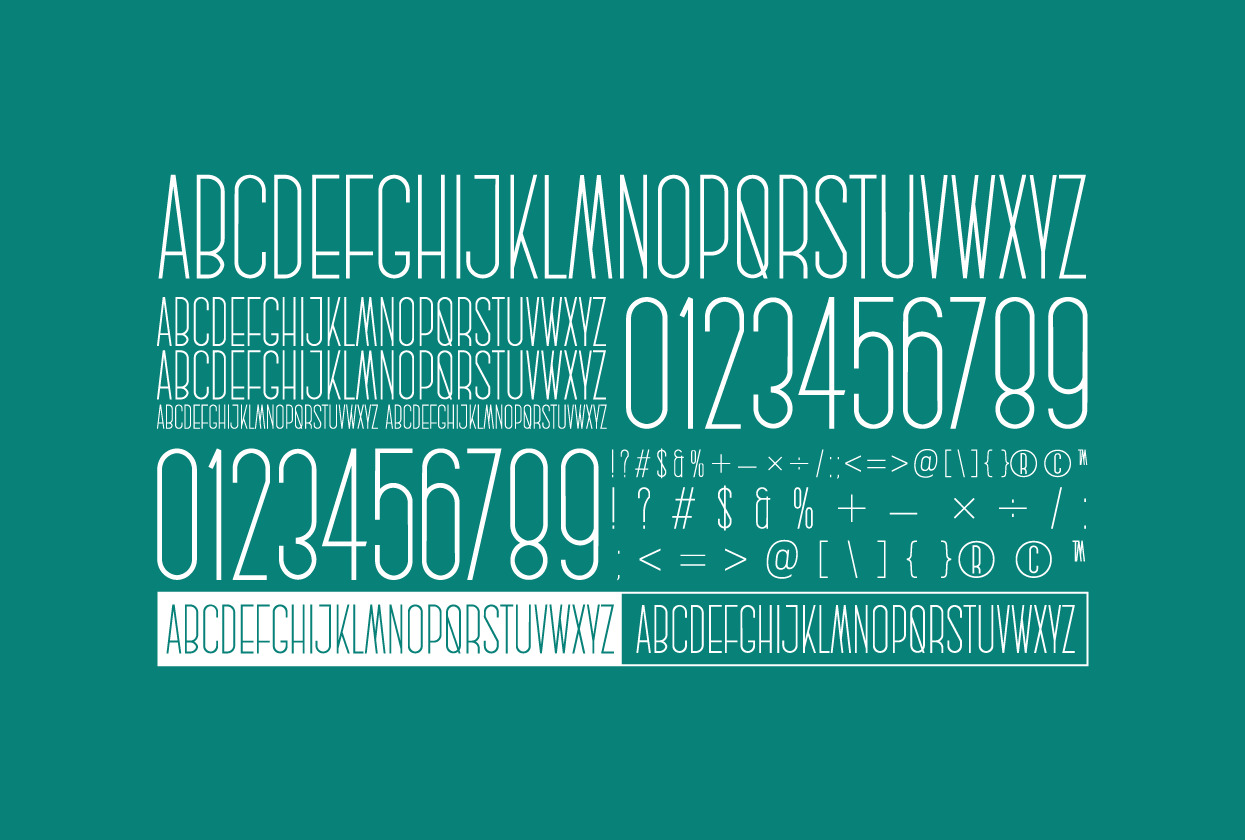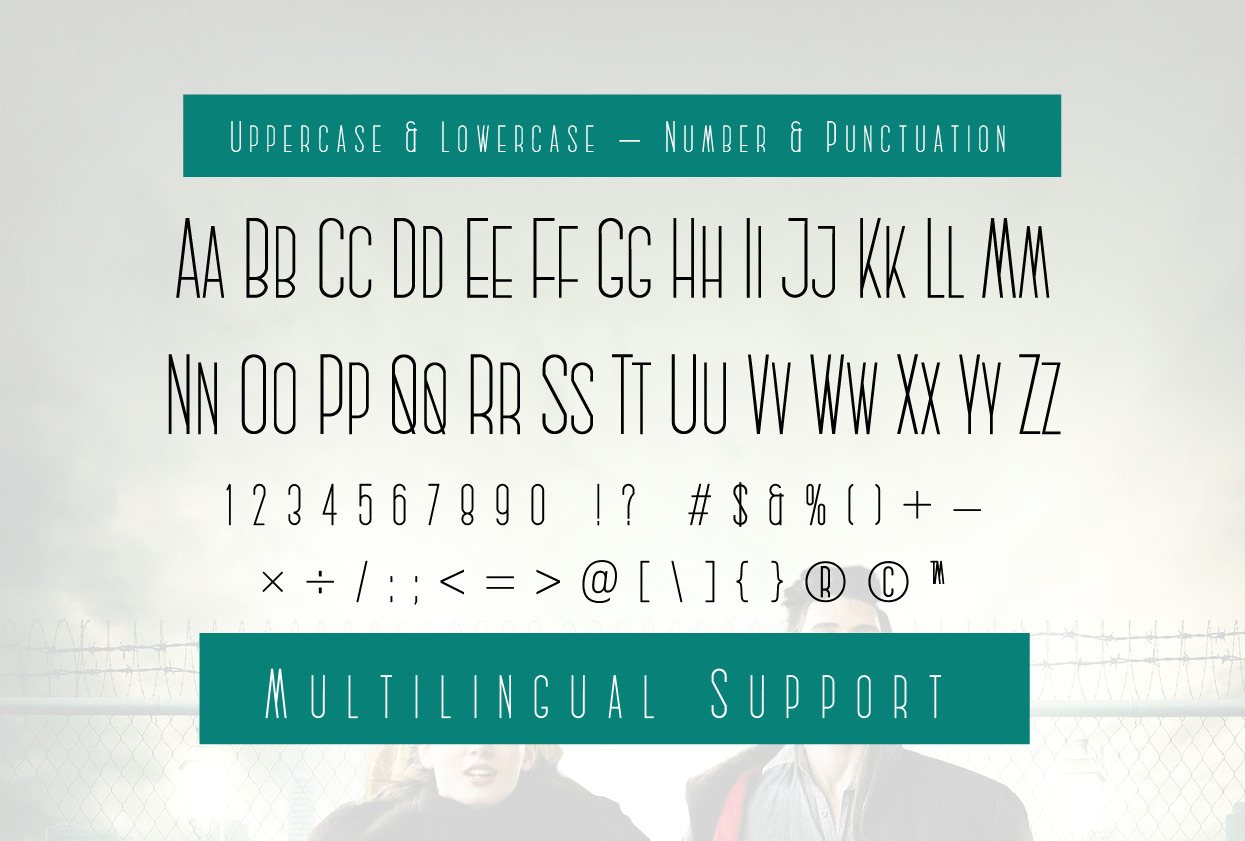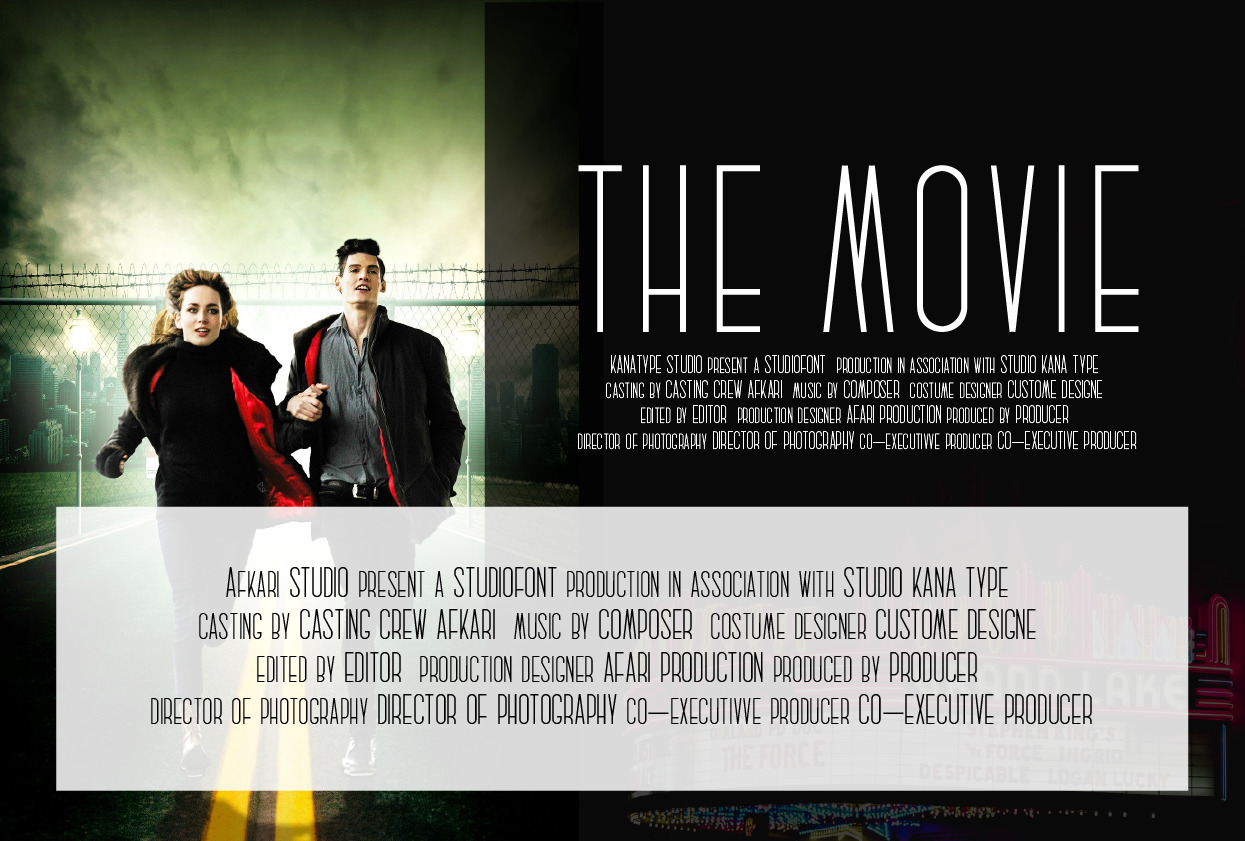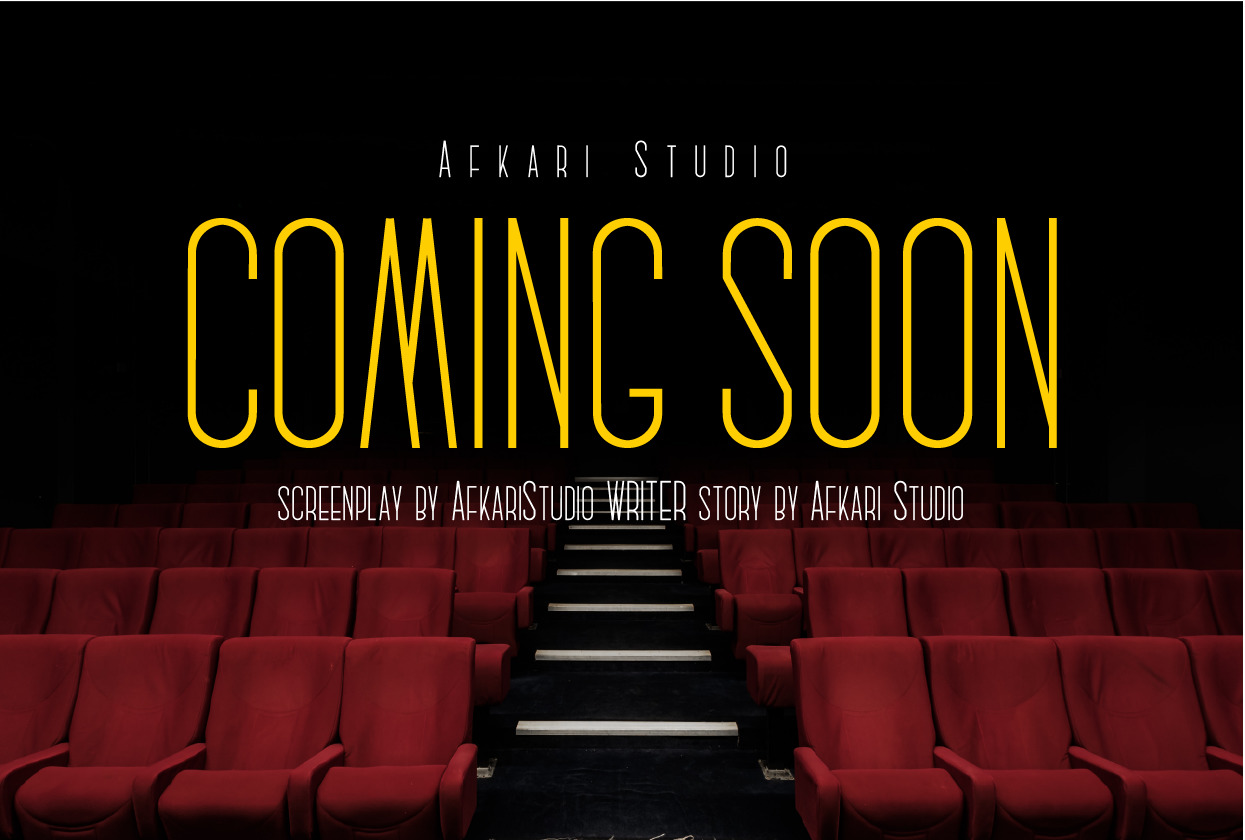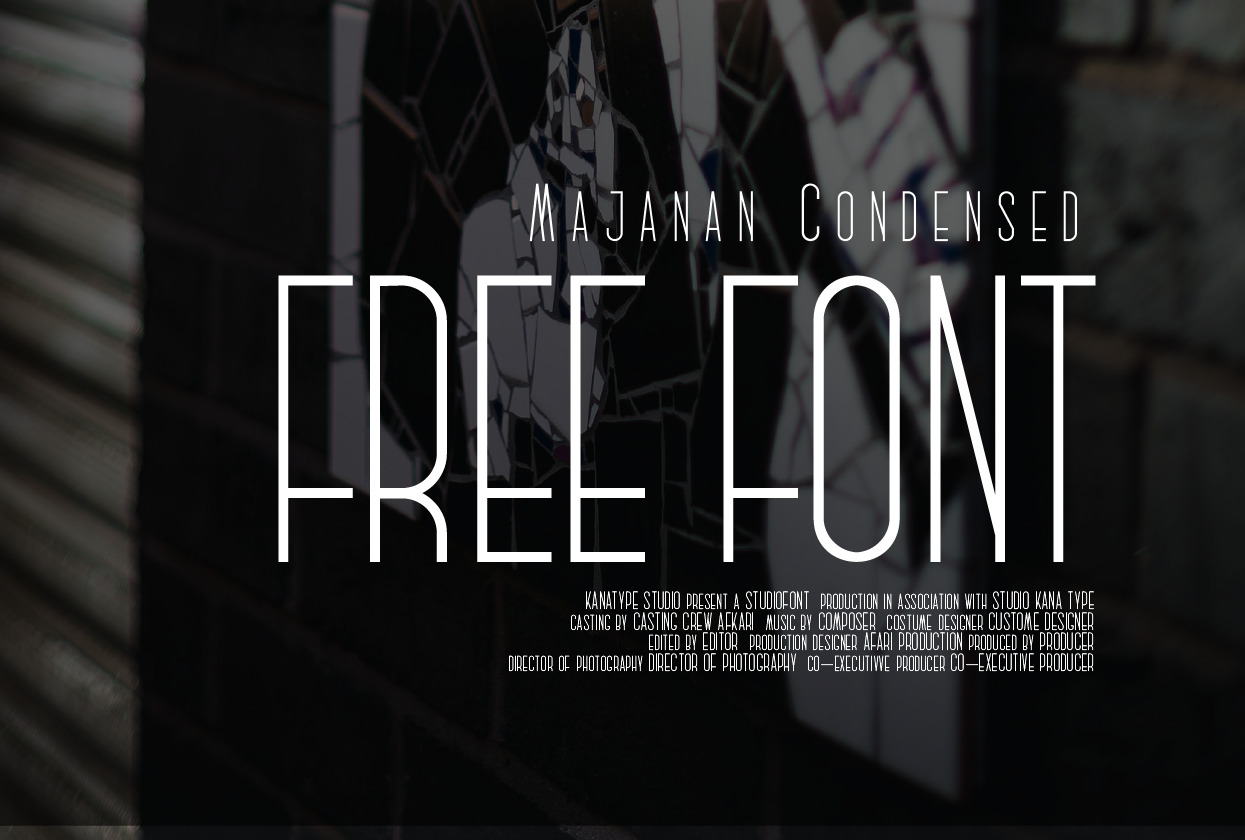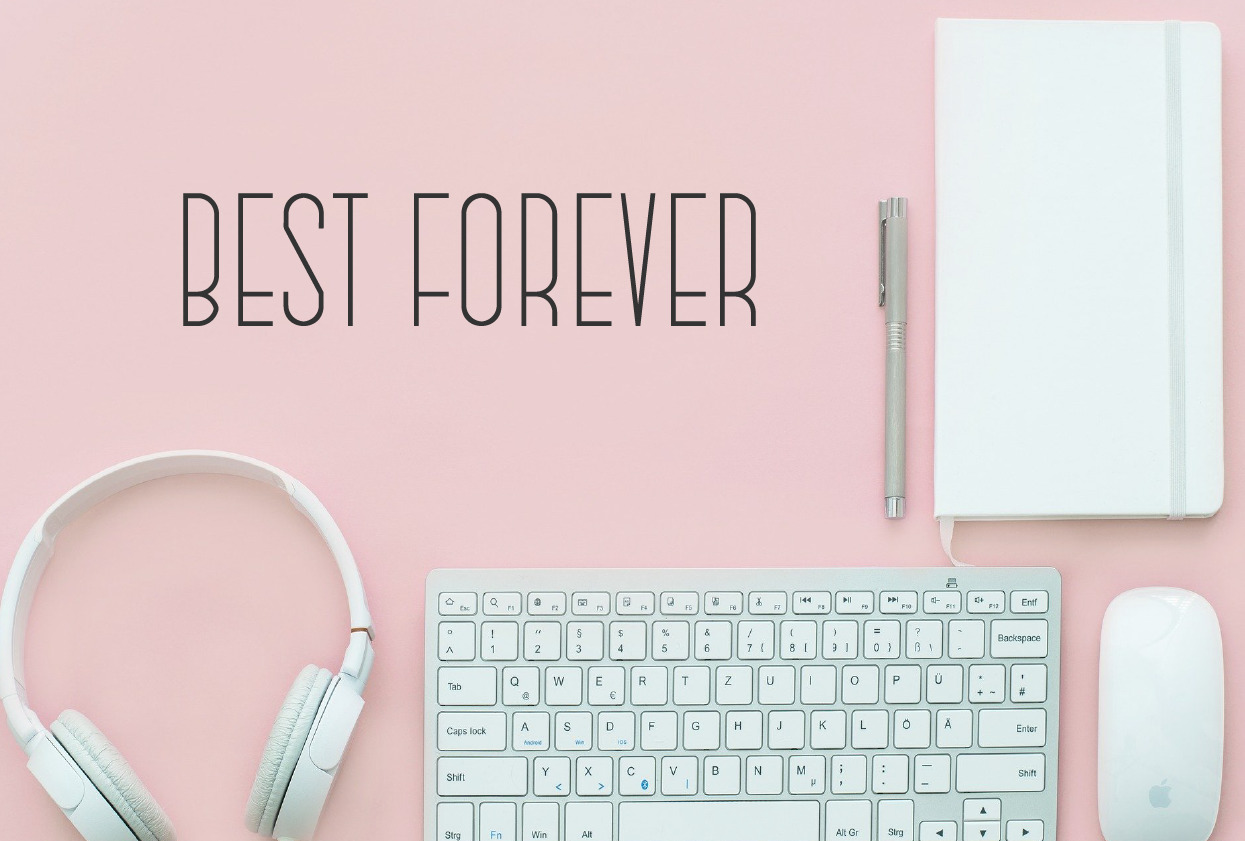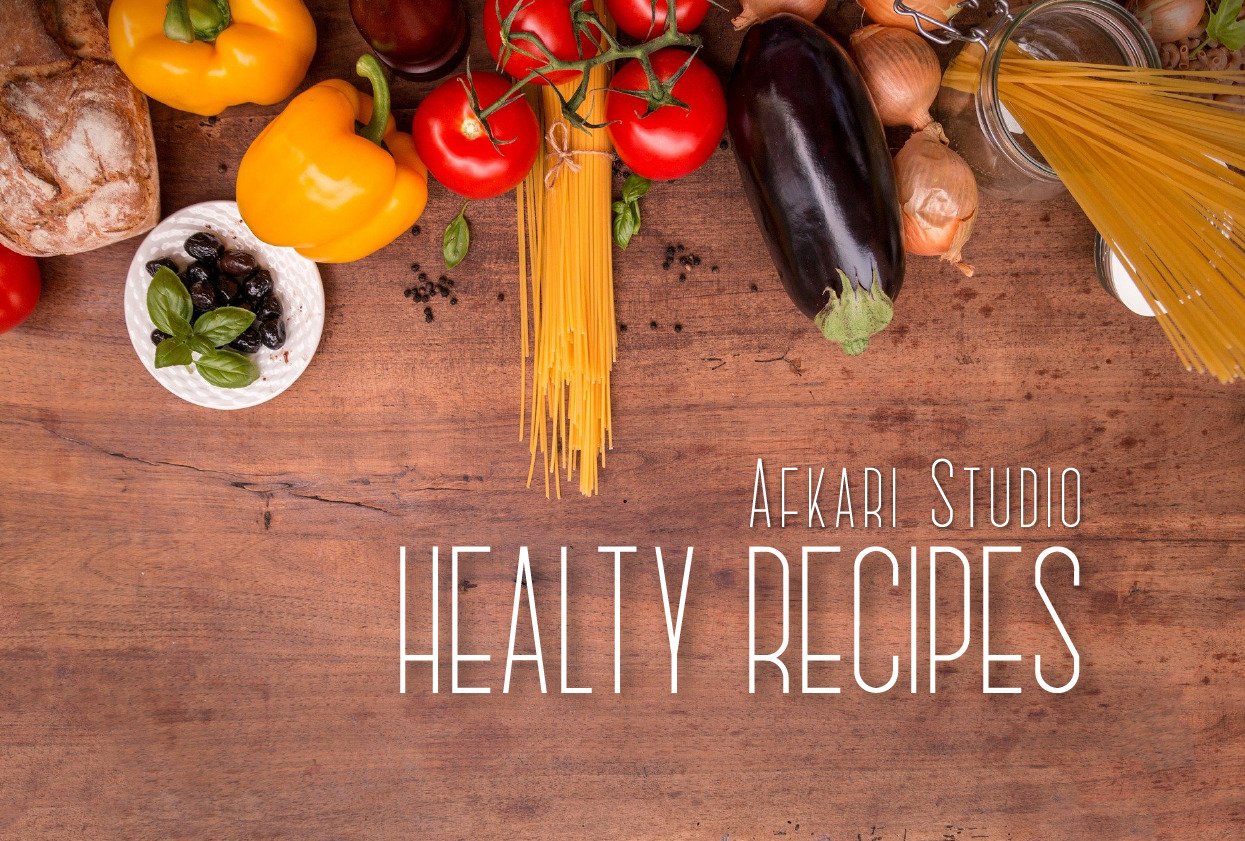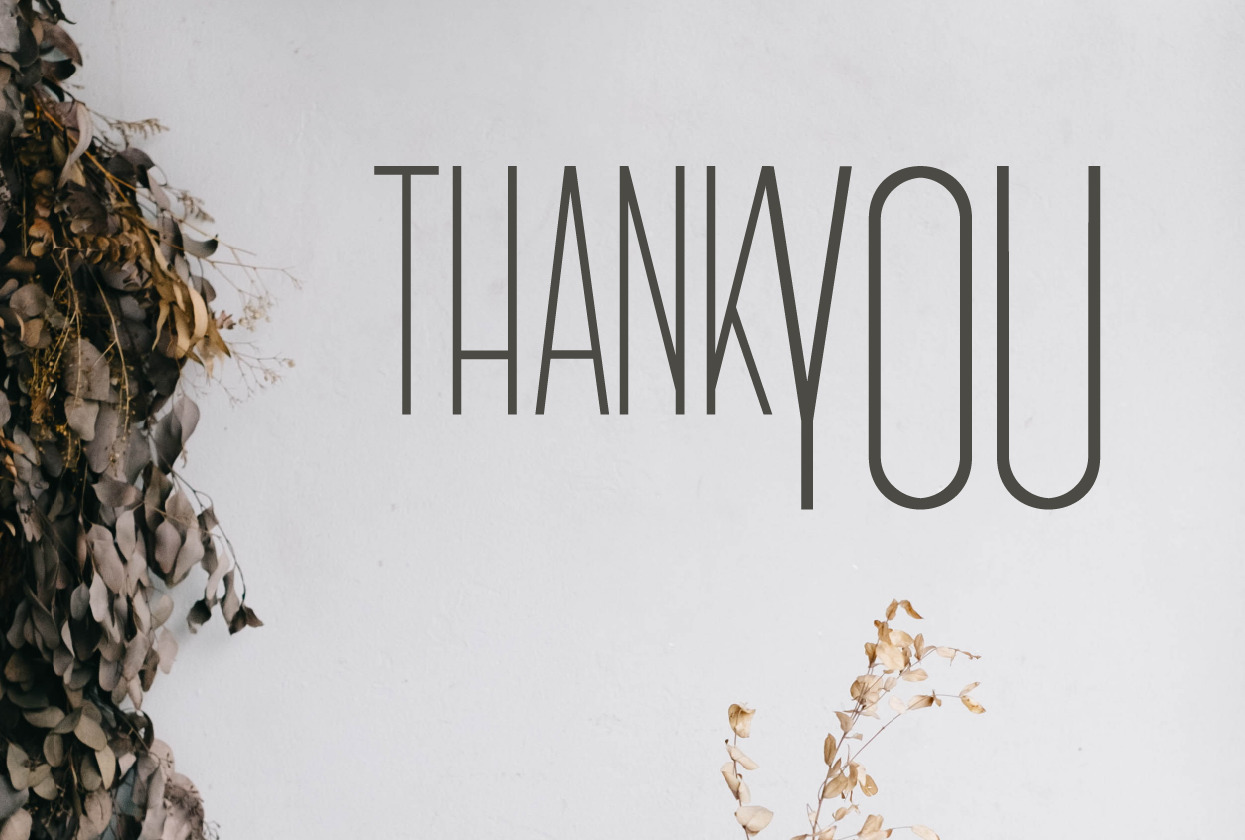
Majanan Sans Serif Condensed Font Free
Majanan is a Sans Serif Condensed font features Uppercase and Lowercase, Numerals and Punctuations and Multilingual characters. This font is suitable for posters, branding, headers, quotes, etc.
Regular style
Multilingual Support